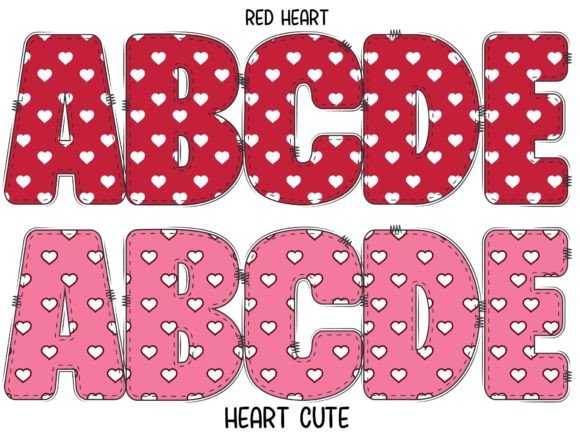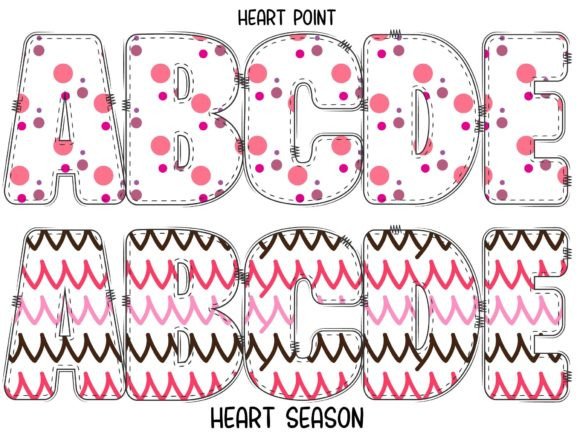
Heart Cute Font: The Ultimate Guide to This Lovely Valentine’s Day-Inspired Typeface
Are you a designer or crafter looking for a unique and adorable font to add a touch of love to your projects? Look no further than the Heart Cute Font! This beautifully designed color font is perfect for Valentine’s Day, anniversaries, and any other occasion that calls for a dash of romance. In this article, we’ll dive into the world of Heart Cute Font, exploring its features, uses, and benefits.
What is Heart Cute Font?
Heart Cute Font is a lovely and charming color font that is sure to capture the hearts of designers and crafters alike. The letters are intricately designed with patterns that represent the day of love, Valentine’s Day, making it the perfect choice for any project that requires a touch of whimsy and romance. The font is available in a range of formats, making it easy to use in various applications, from digital designs to print projects.
Key Features of Heart Cute Font
- Beautifully Designed Letters: Each letter in the Heart Cute Font is carefully crafted with intricate patterns that evoke the spirit of Valentine’s Day.
- Color Font: The font comes in a range of colors, allowing you to add a pop of color to your designs.
- Versatile: Heart Cute Font can be used in a variety of projects, from digital designs to print materials.
Uses of Heart Cute Font
Heart Cute Font is a versatile typeface that can be used in a wide range of projects, including:
- Valentine’s Day Cards and Invitations: Add a touch of love to your Valentine’s Day cards and invitations with this adorable font.
- Digital Designs: Use Heart Cute Font in your digital designs, such as social media graphics, blog posts, and email newsletters.
- Print Projects: The font is perfect for print projects, including brochures, flyers, and posters.
- Crafting Projects: Heart Cute Font is a great addition to any crafting project, from scrapbooking to card making.
Benefits of Using Heart Cute Font
So, why should you choose Heart Cute Font for your projects? Here are just a few benefits:
- Adds a Touch of Whimsy: Heart Cute Font adds a playful and whimsical touch to any project.
- Perfect for Valentine’s Day: The font is specifically designed for Valentine’s Day, making it the perfect choice for any project related to this holiday.
- Versatile: Heart Cute Font can be used in a wide range of projects, making it a great addition to any design or crafting toolkit.
Tips for Using Heart Cute Font
Here are a few tips for getting the most out of Heart Cute Font:
- Experiment with Colors: Try out different colors to see which ones work best for your project.
- Mix and Match: Combine Heart Cute Font with other fonts to create a unique and eye-catching design.
- Use it Sparingly: Use Heart Cute Font sparingly to add a touch of whimsy to your project, rather than overwhelming it.
Heart Cute Font is a lovely and charming typeface that is perfect for designers and crafters looking to add a touch of love to their projects. With its beautifully designed letters, versatility, and ease of use, it’s a great choice for any project that requires a dash of romance. Whether you’re working on a Valentine’s Day card, a digital design, or a crafting project, Heart Cute Font is sure to make your work look super cute!